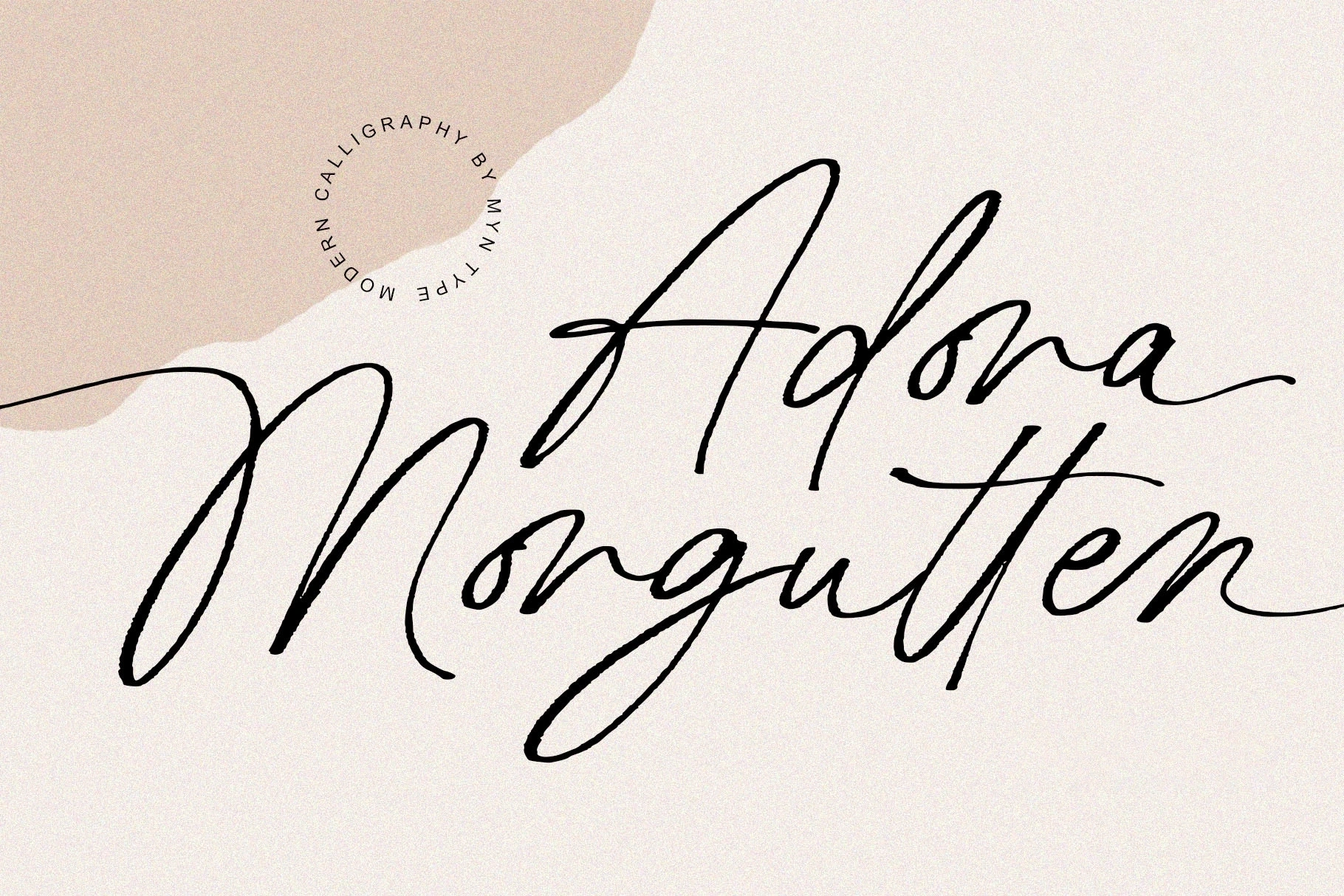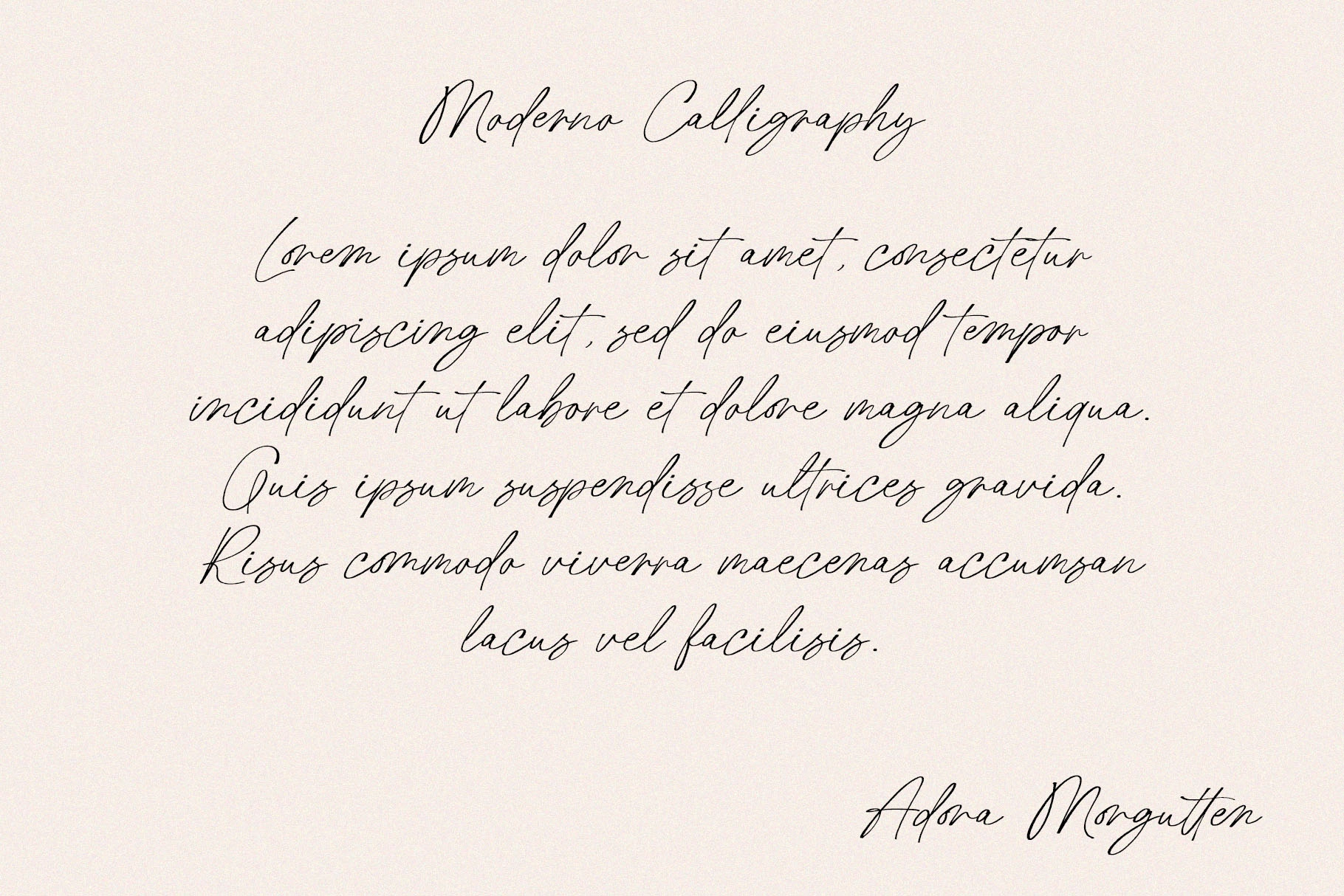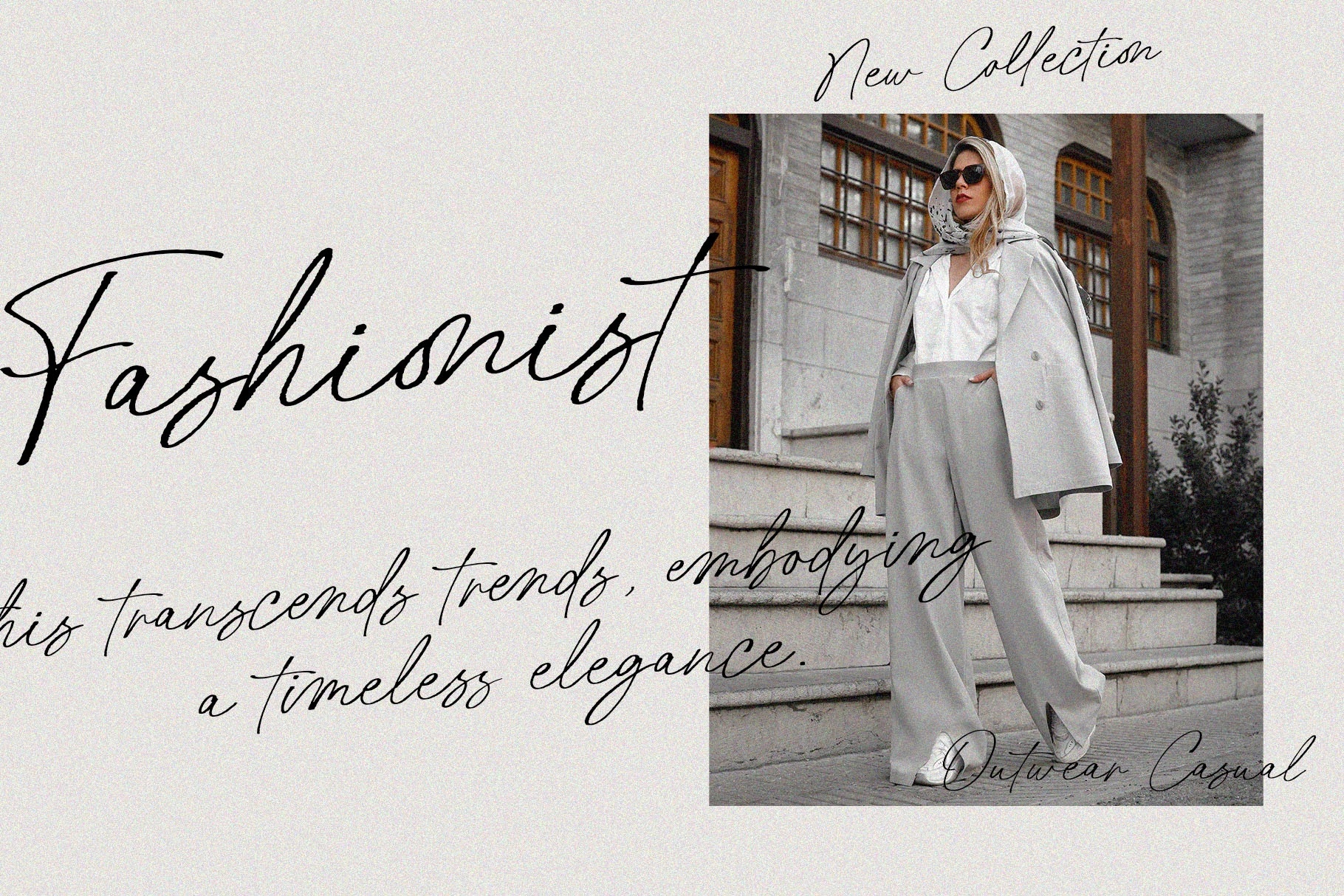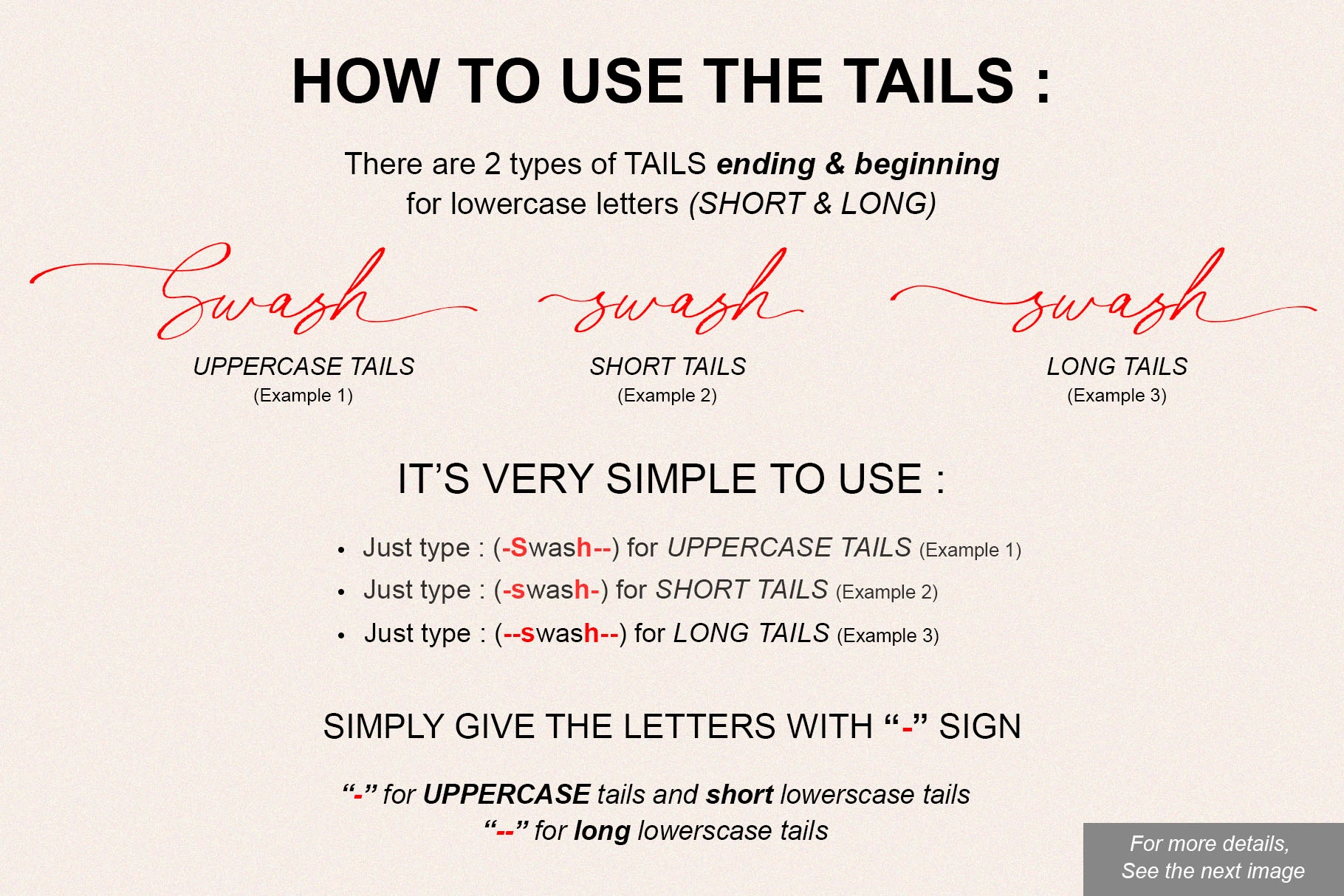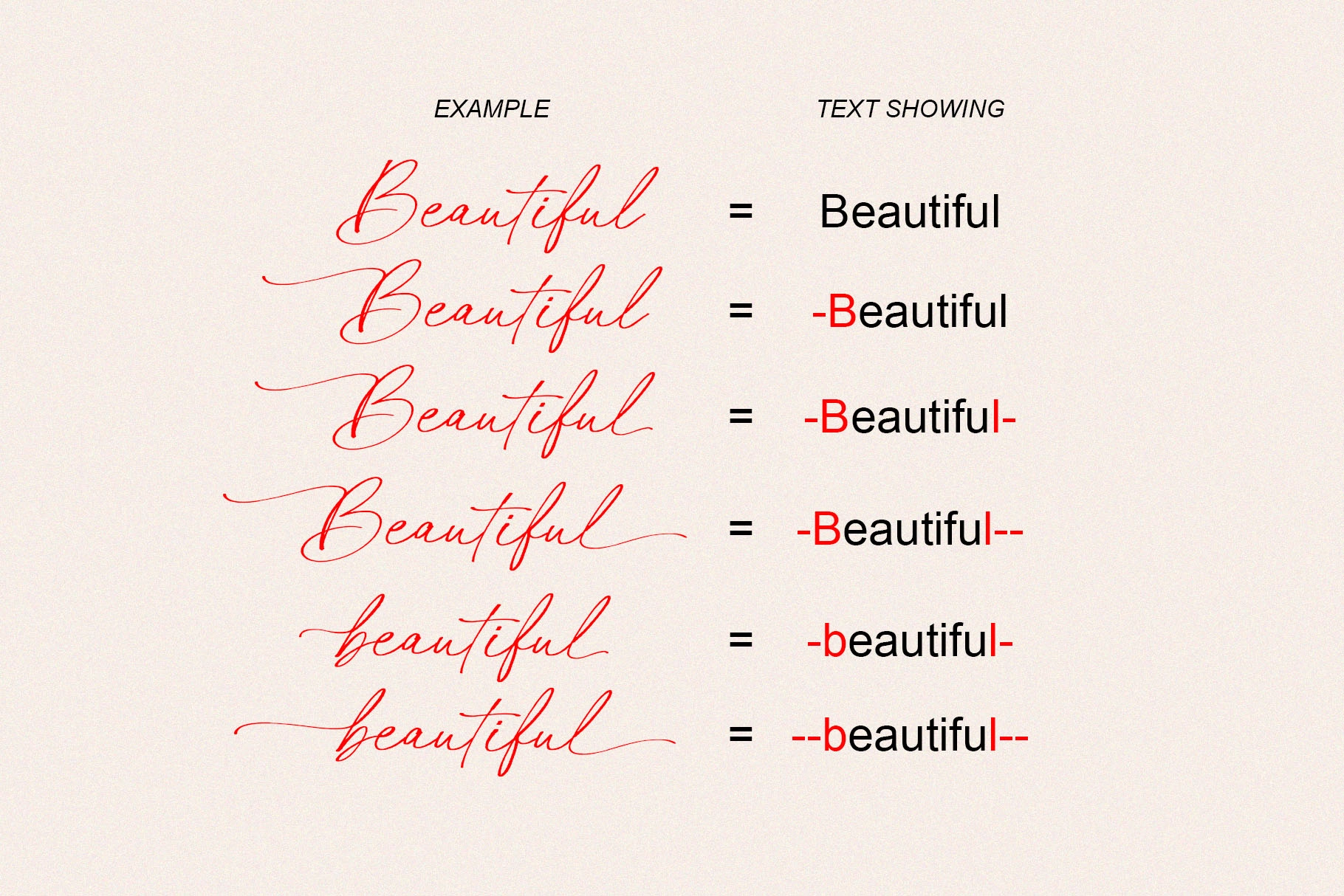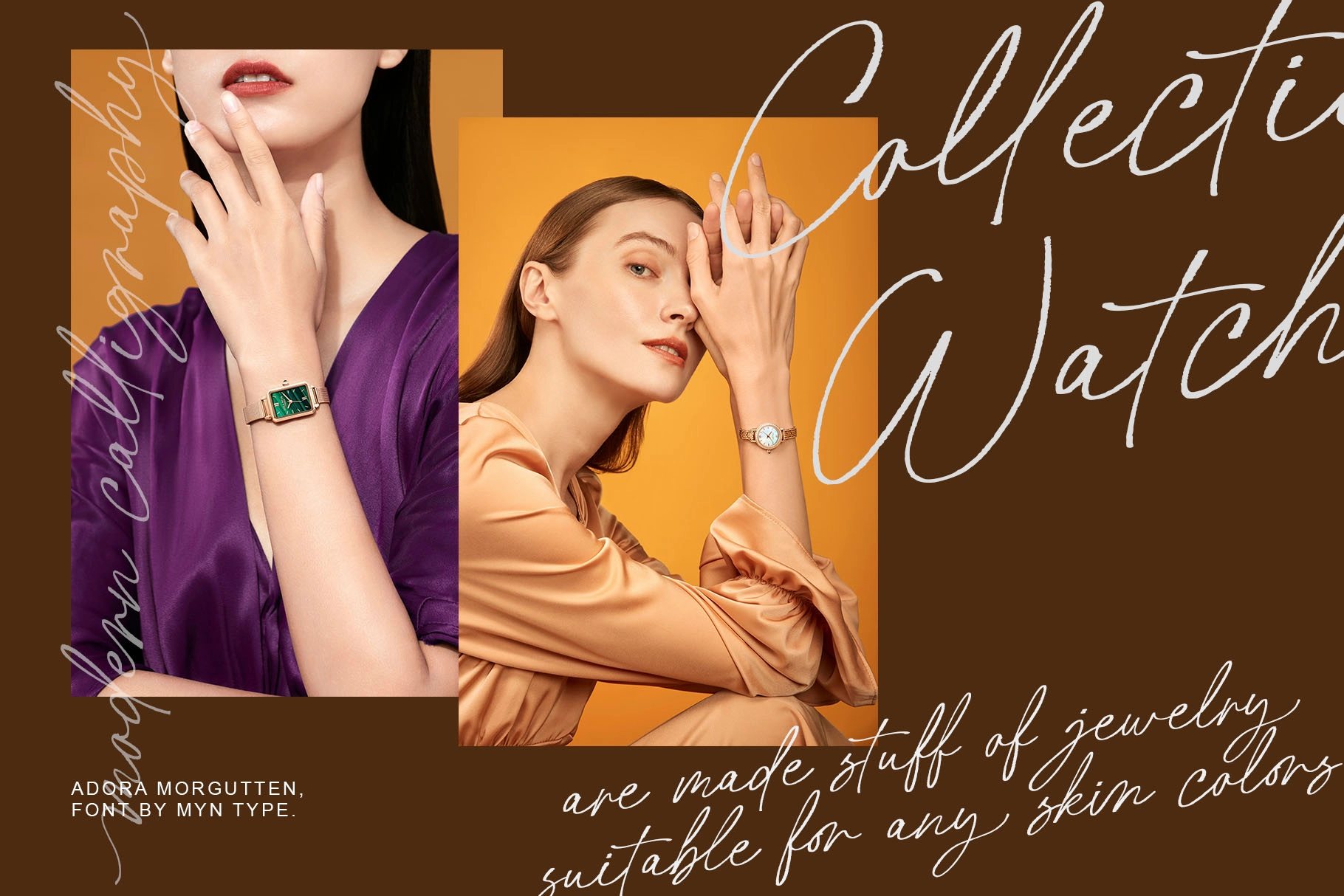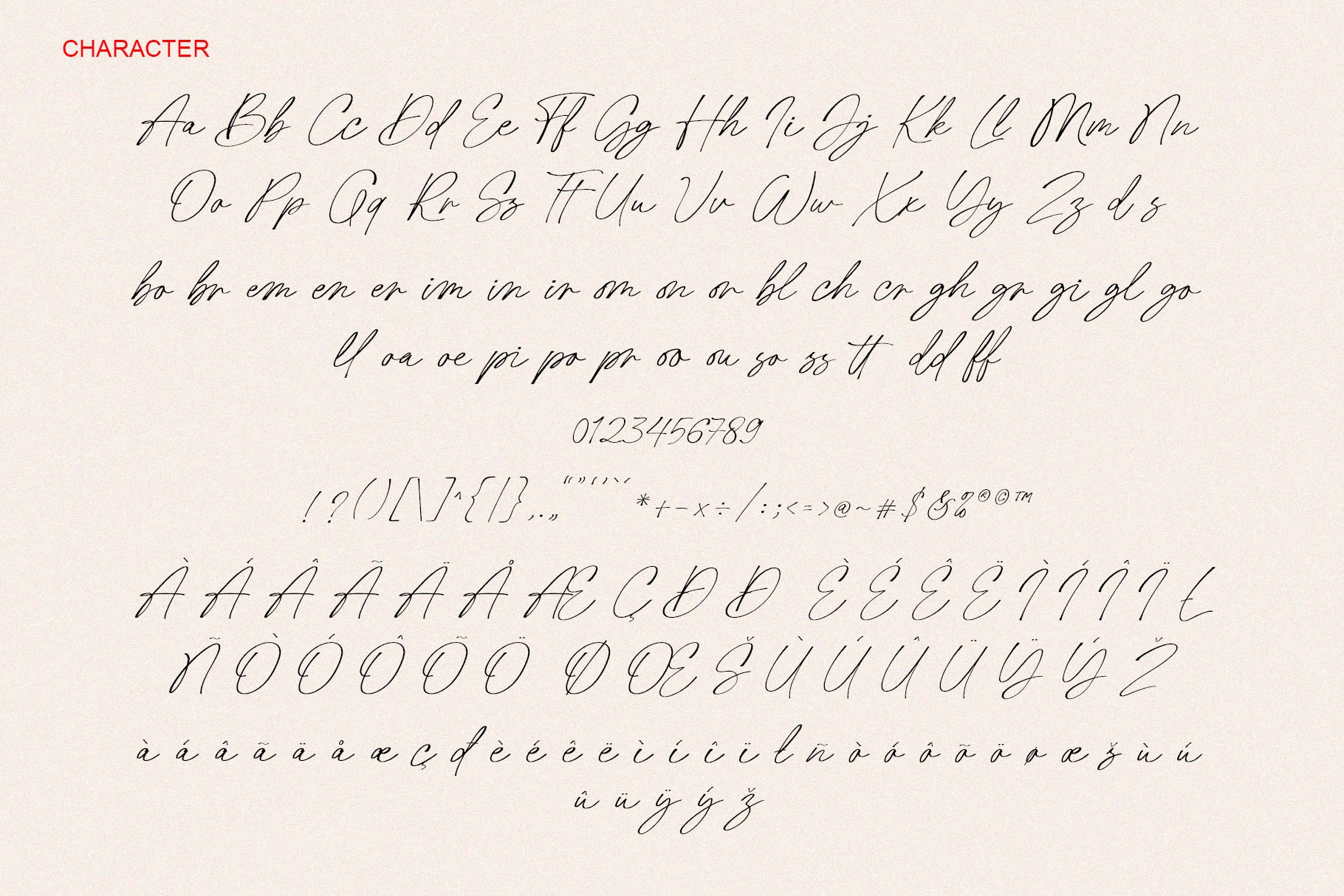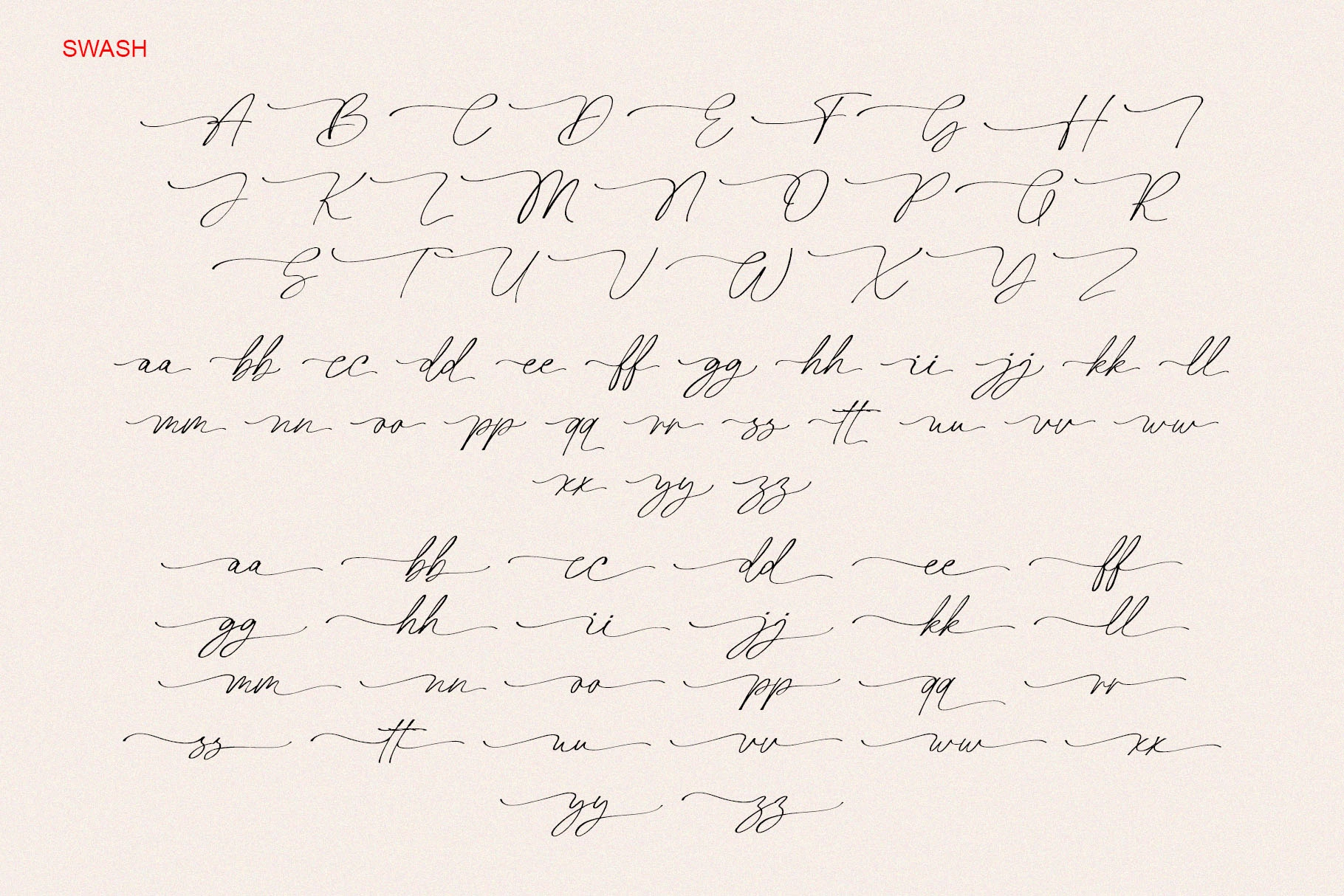
Adora Morgutten - Ink Calligraphy
Adora Morgutten
A contemporary font that seamlessly marries the fluidity of traditional calligraphy with a sleek, modern aesthetic. Characterized by expressive pen-and-ink strokes, this font exudes a dynamic energy that captures the essence of handcrafted artistry.